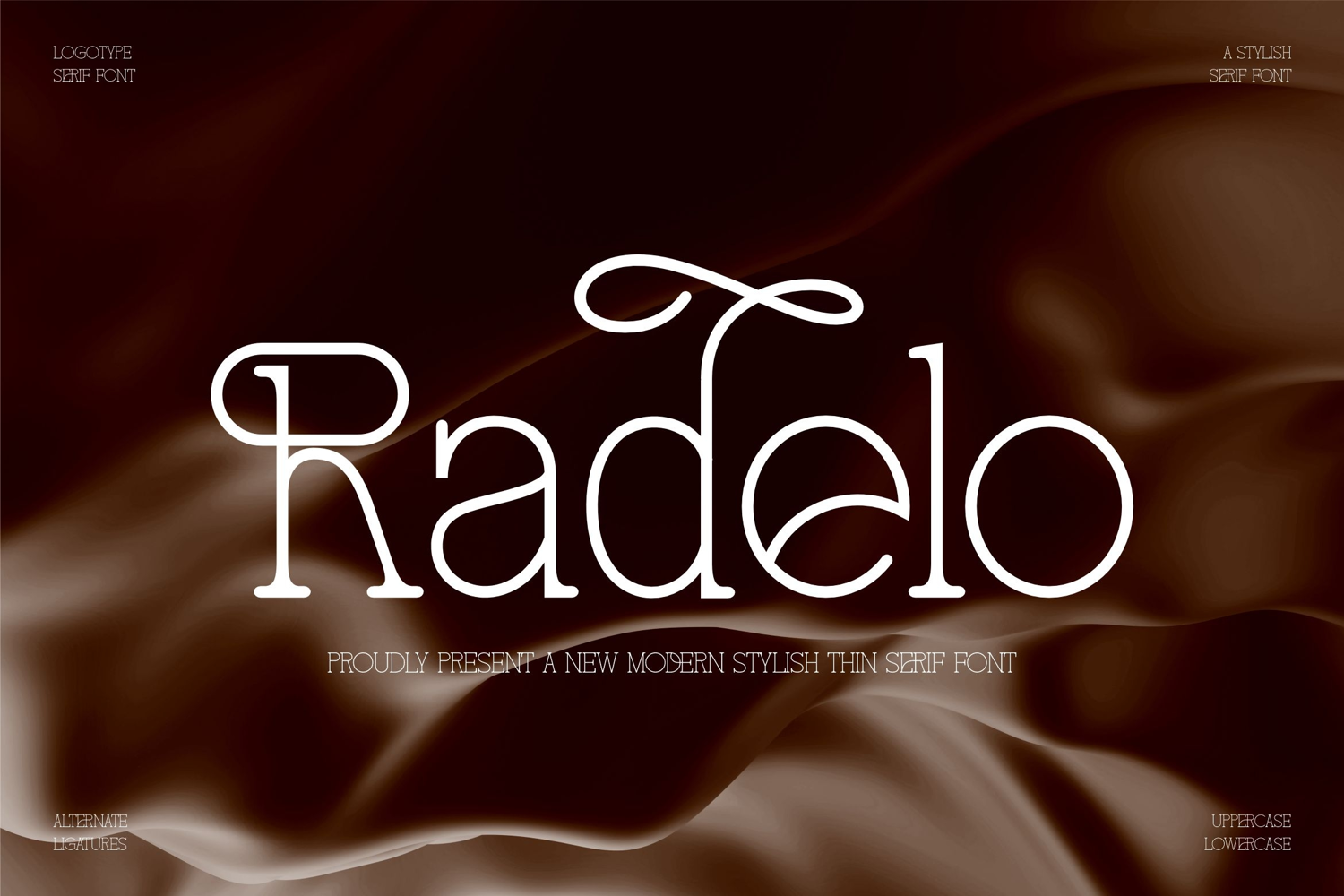
Radelo || Modern Stylish Thin Serif Font
Radelo
Introducing Radelo is a modern stylish thin serif font, trendy,cute display font. It has a unique character with wood theme. It is perfect to be combined with invitation card designs, company logos, movie titles, movie names, business cards, book titles, brand names and various other designs.
- Uppercase and lowercase
- Numbering and Punctuation